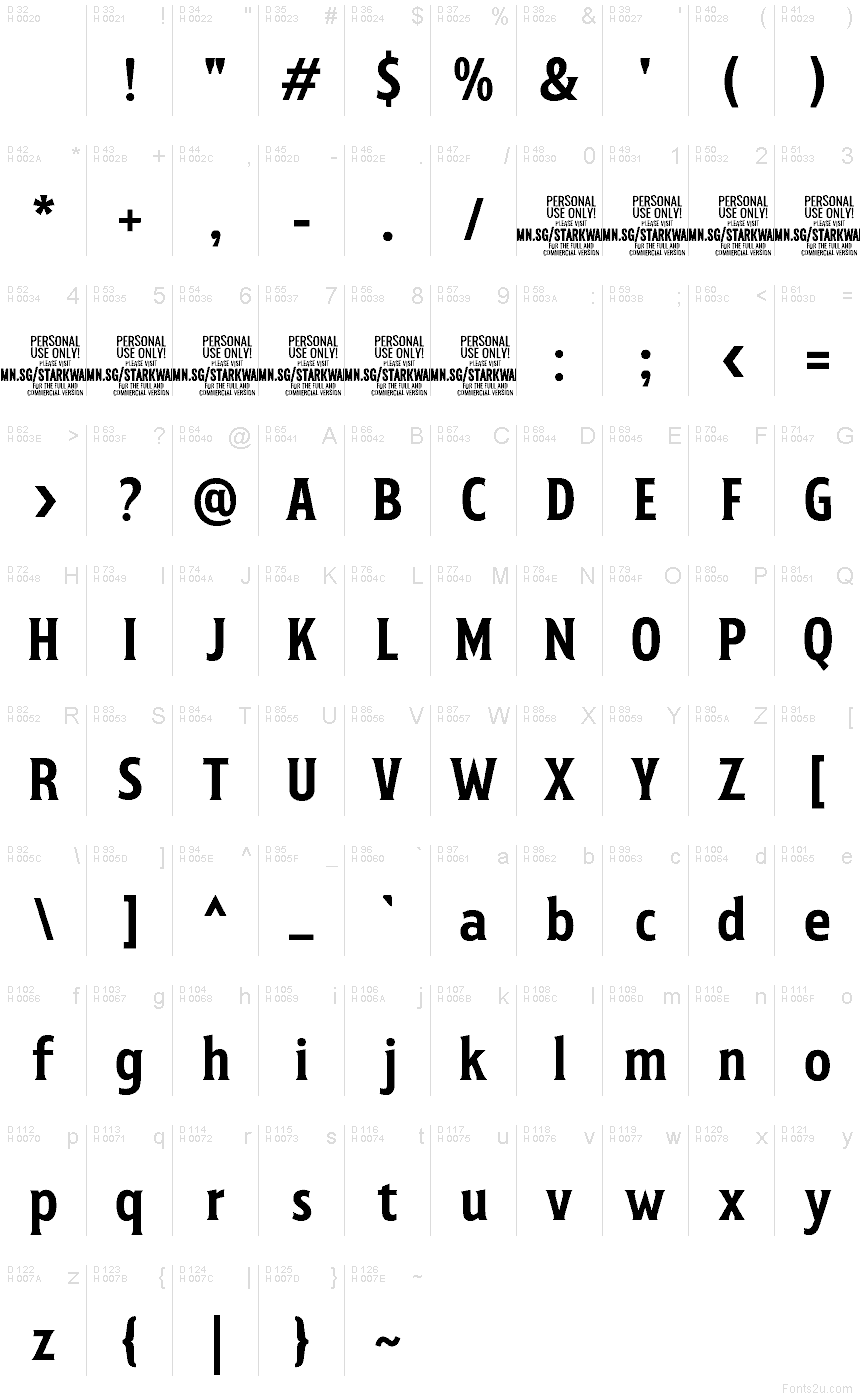
Starkwalker Classic PERSONAL Regular
Starkwalker Classic font by Mans Greback is a free retro serif font. Built within the Starkwalker family, it stands out with chunky, grounded stems and sleek, tapering curves that feel a touch space-age—like storefront signage polished for the future. The wedge-like serifs bite cleanly into the baseline, while smooth, aerodynamic bowls add momentum, giving headlines that cinematic, forward-thrusting swagger.
This free font shines on movie titles, tech brandmarks, posters, game covers, album art, packaging, and vintage-inspired signage. Using Starkwalker Classic, you get assertive rhythm and tight spacing that read loud and clear at scale without losing finesse. Pair it with a light, geometric sans for body copy, and add a hair of tracking (+2–4%) when set extra large to let those bold curves breathe.